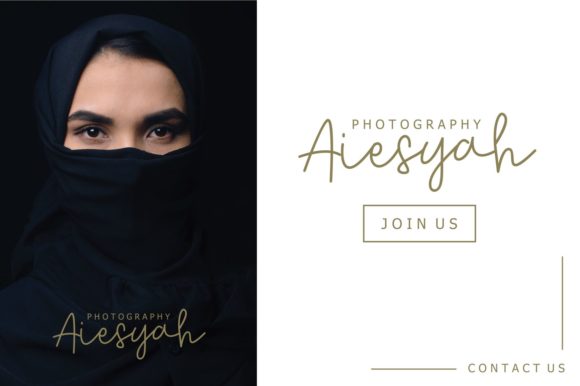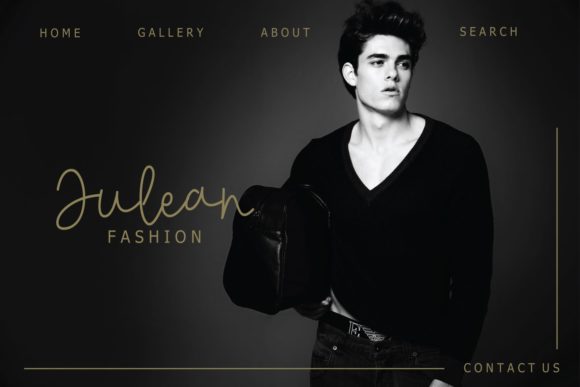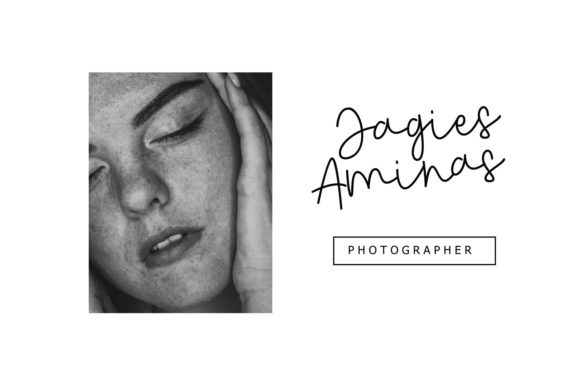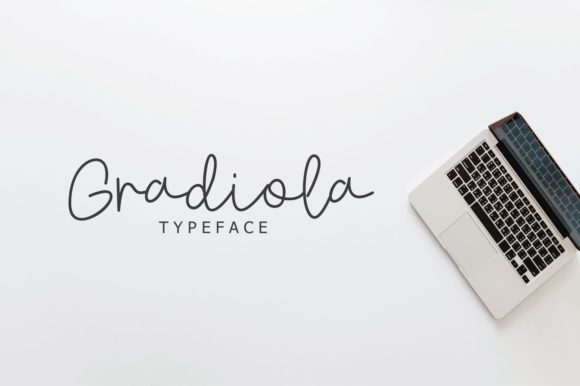
Introduction to Gradiola Font
As a designer, there’s nothing quite like the thrill of seeing a project come together – the spark of creativity, the rush of bringing an idea to life, and the satisfaction of watching it connect with others. For me, that moment often begins with a single, carefully chosen font. And today, I want to share with you a font that’s been making waves in the design community: the stunning Gradiola Font.
This beautiful, natural handwritten font is the perfect addition to any creative project, from signatures and stationery to logos and branding. With its unique, high-quality design, the Gradiola Font is a valuable resource for designers looking to add a touch of personality to their work. And the best part? It’s available for free download, making it an accessible design resource for creatives of all levels.
Key Features of Gradiola Font
- High-quality design resource suitable for various creative projects, including digital art and print media.
- Features a unique, hand-drawn style with intricate details and subtle texture, making it an excellent choice for designers seeking a distinctive look.
Honest Review: Gradiola Font
I recently stumbled upon the Gradiola Font, a free design resource that I was eager to test in my creative project. As a designer, I appreciate high-quality fonts that can elevate the overall aesthetic of my work.
The Gradiola Font delivers in terms of uniqueness and style. It features a distinctive, elegant design that is perfect for projects that require a touch of sophistication. I was particularly impressed with the transparent background option, which allows for seamless integration into various design elements.
- ✨ Unique and stylish design
- ✨ High-quality typography
- ✨ Transparent background option
- ⚠️ Limited font sizes and styles available
- ⚠️ May not be suitable for bold or dramatic designs
Overall, I’m impressed with the Gradiola Font, and I would definitely recommend it as a design resource for creative projects. While it may have some limitations, its unique style and high-quality typography make it a valuable addition to any designer’s toolkit.
How to Use Gradiola Font
Tips for Getting the Most Out of Gradiola Font
Use the Gradiola Font on a transparent background to create a beautiful and elegant design. Experiment with different font sizes and colors to create visual interest.
The Gradiola Font is perfect for creative projects such as branding, marketing materials, and digital art. Its high-quality design and transparent background make it ideal for use in a variety of design software and applications.